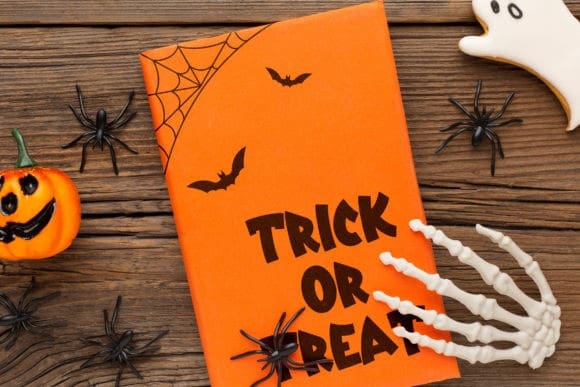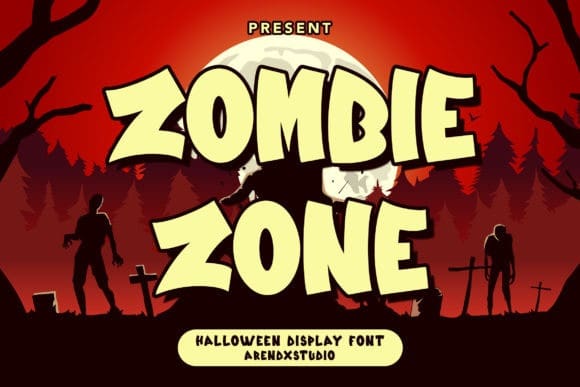
Zombie Zone Font
Zombie Zone Font is a cool, bold and cartoon-like display font. It is perfect for children themed designs, especially when combined with bright colors.